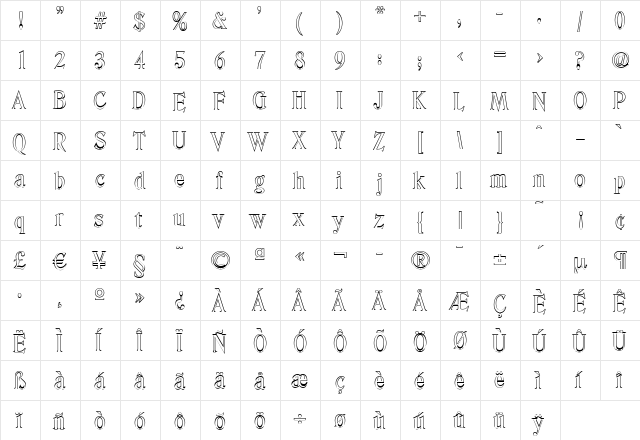
ThomasBeckerOutline Regular
Design Context for ThomasBeckerOutline Typeface
ThomasBeckerOutline is built around its visual character rather than neutral utility — its distinctive forms are designed to make an impression at display sizes.
Font Pairing: Pair with a clean neutral sans-serif for body copy to let ThomasBeckerOutline's character lead without overwhelming the composition.
Pro Tip: Treat ThomasBeckerOutline as the centrepiece of your typographic hierarchy. One strong heading set in a decorative face can carry an entire layout.